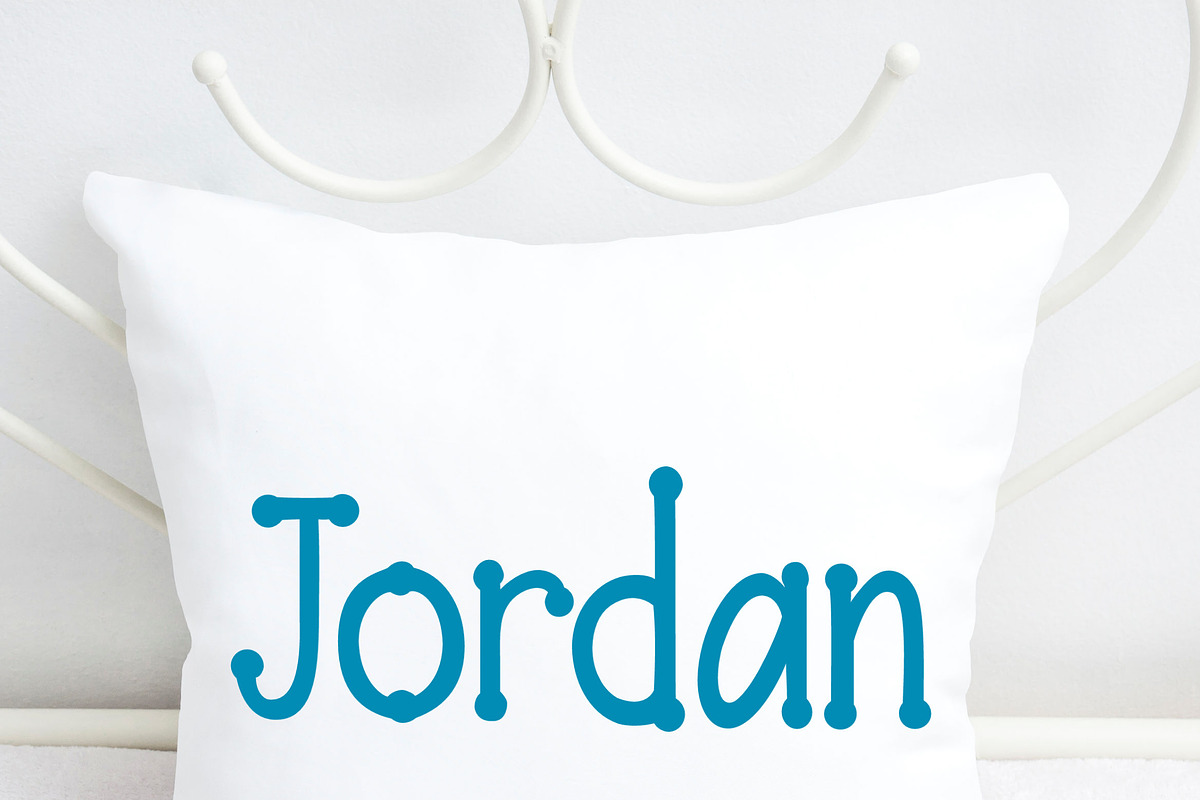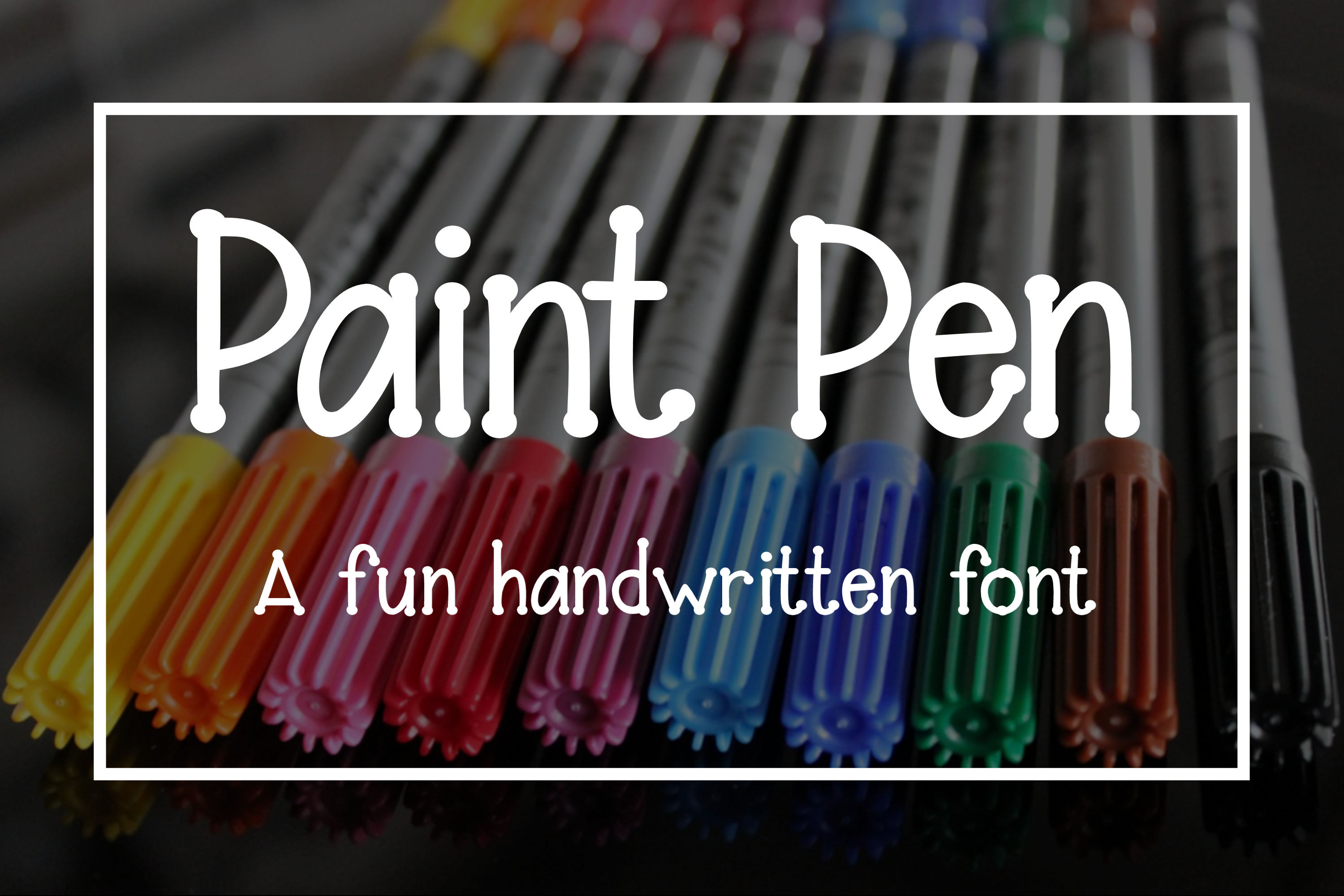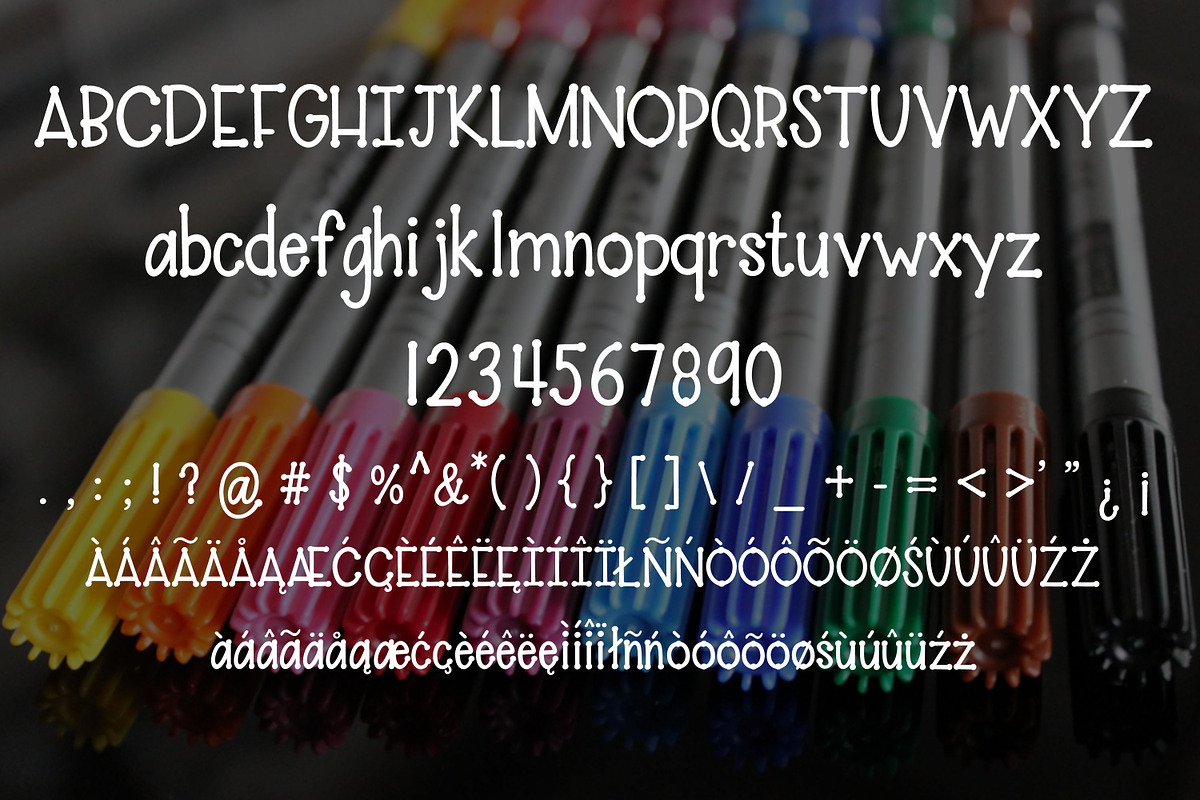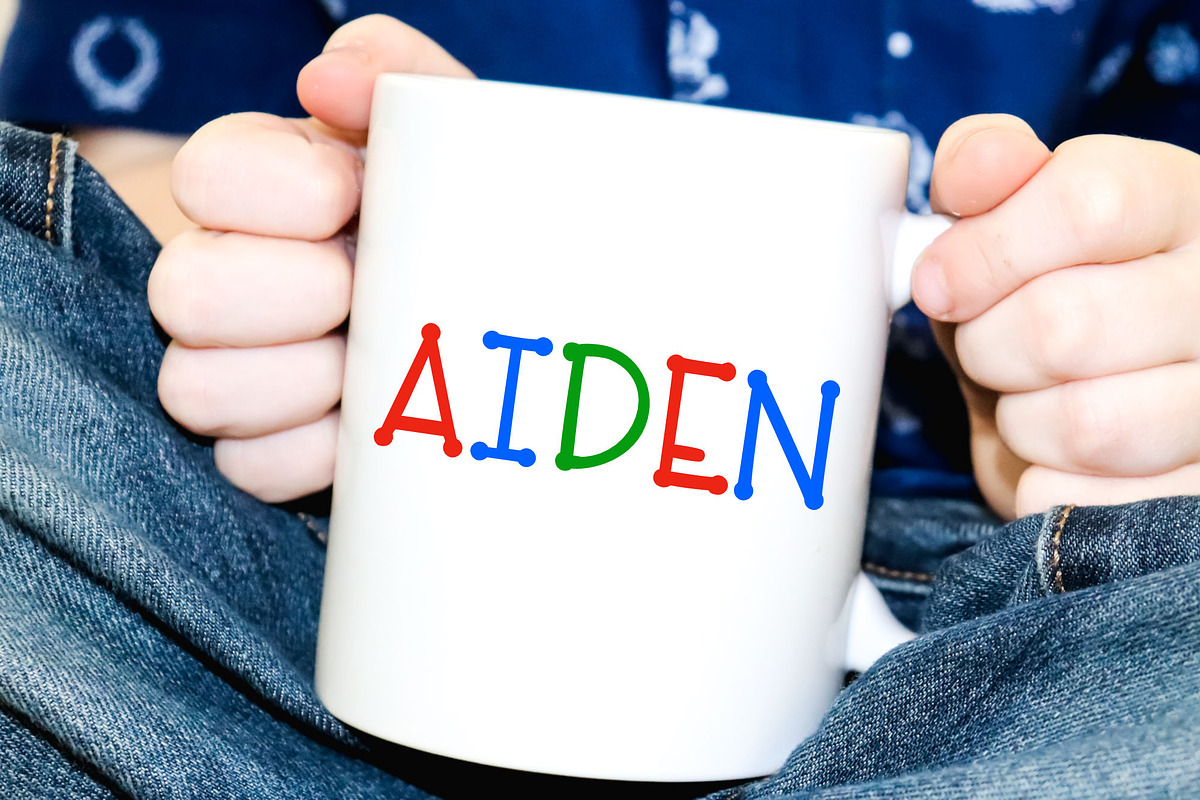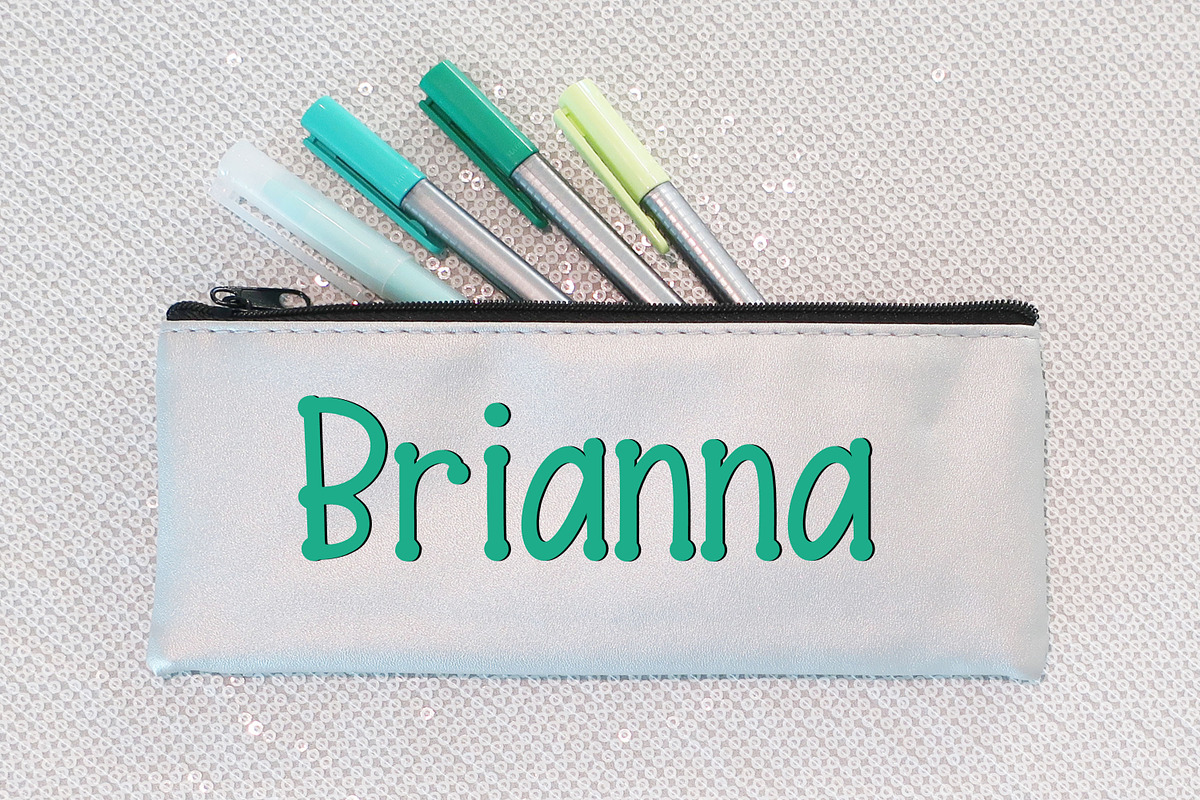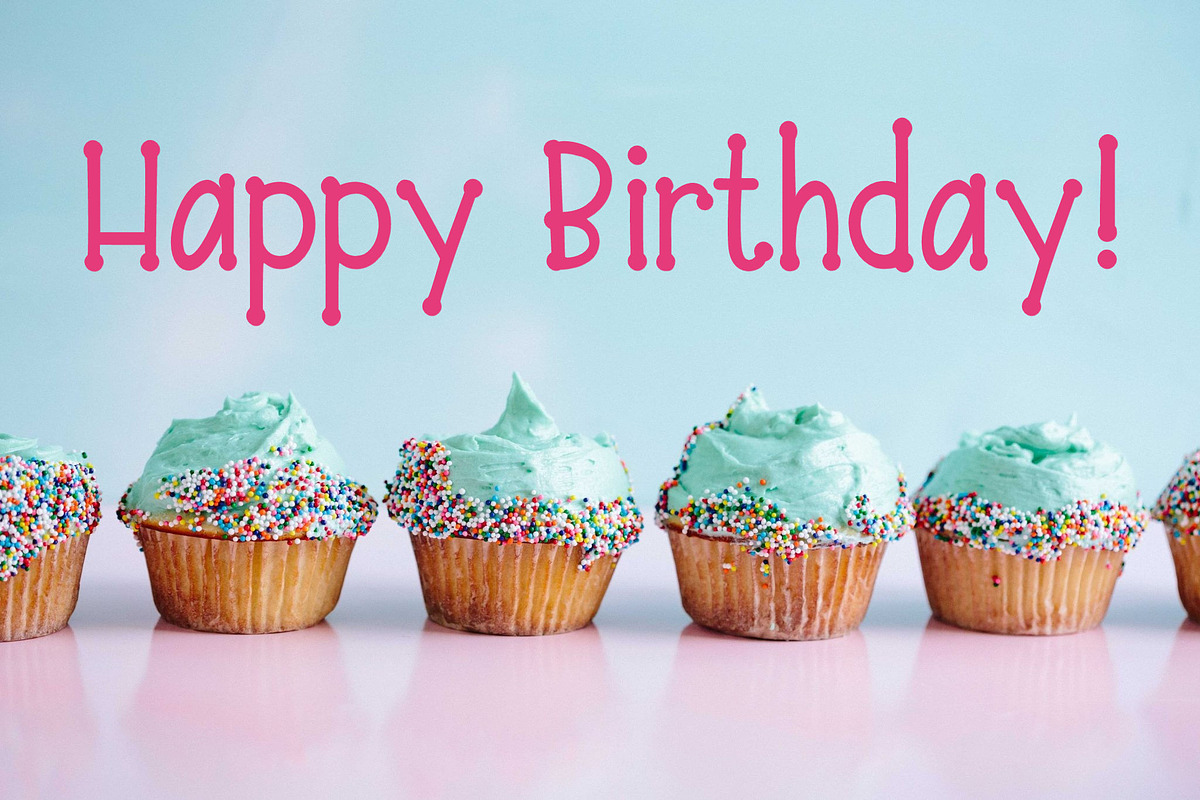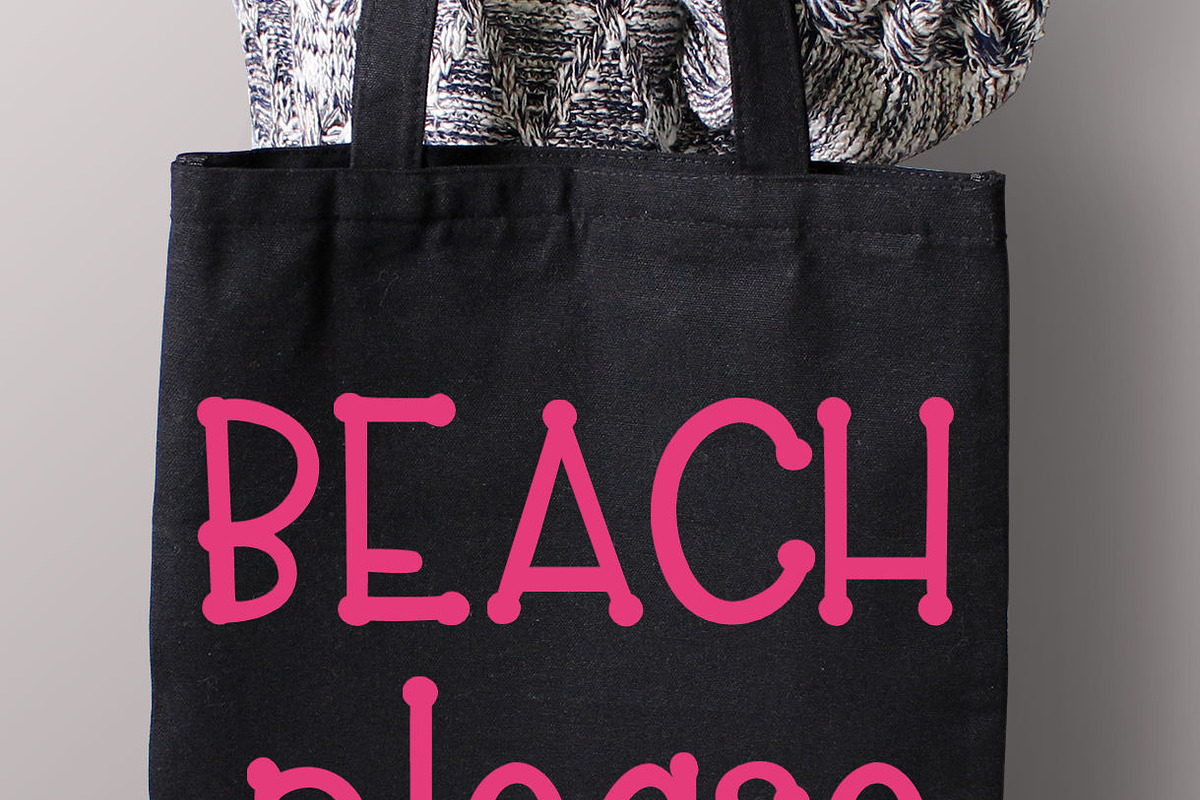
Paint Pen - A fun handwritten font
I named this font Paint Pen because it reminds me of when I was young and we used to personalize everything (acrylic jewelry boxes, makeup storage, notebooks) in this style with paint pens. Paint Pen is a fun handwritten font made up of capital letters A-Z, lowercase letters a-z, numbers 0-9, accented characters and punctuation.